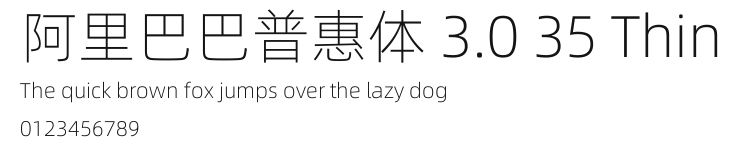
阿里巴巴普惠体 3.0 35 Thin Preview
• Font Name: 阿里巴巴普惠体 3.0 35 Thin
• Font ID: Hanyi Alibaba-PuHuiTi-3-35-Thin v3.01
• Full Font Name: 阿里巴巴普惠体 3 35 Thin
• Version: Version 3.01
• PostScript Name: AlibabaPuHuiTi_3_35_Thin
• Character Count: 29197
• Designer: Alibaba Design
• Manufacturer: Alibaba Design;汉仪字库
• Description: GB18030-2022 实现级别2
About 阿里巴巴普惠体 3.0 35 Thin.ttf
阿里巴巴普惠体 3.0 35 Thin.ttf is a modern, elegant sans-serif font designed for ultimate readability and visual harmony. Perfect for branding, headlines, web design, and print materials.